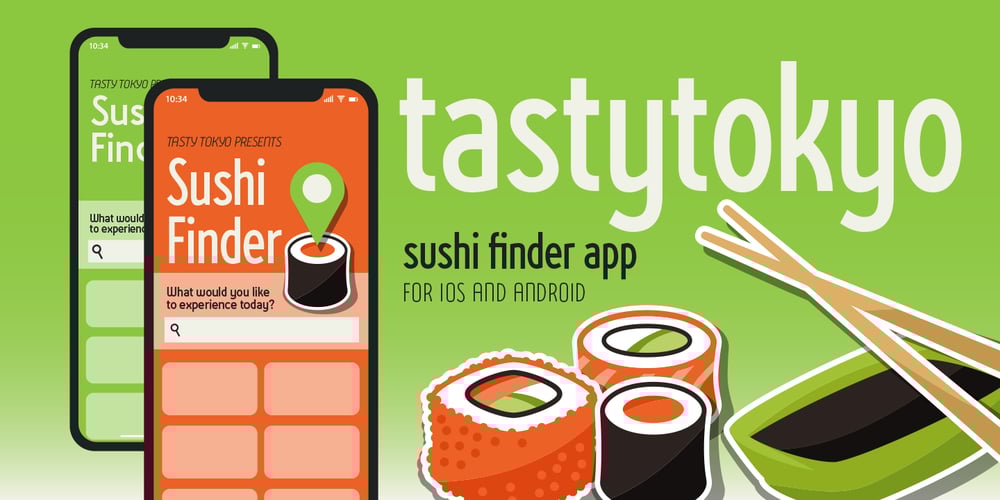
Wasabi Condensed Font Family was designed by Neil Summerour and published by Positype. Wasabi Condensed contains 14 styles and family package options. Remastered in 2019. Wasabi is the re-imagining of my very first release, Iru. Like Iru, Wasabi was heavily influenced by the monument lettering style, Vermarco. The simple, geometric forms allowed for small lettering sizes to be sandblasted cleanly and has been a monument lettering workhorse for decades… the only issue centered around the lack of a lowercase or any other letters beyond the 26 uppercase glyphs and the numerals. Wasabi solves this with the same simple, efficient line reminiscent of the old Vermarco while bringing it into the 21st century. Visual and optical incongruities of the original uppercase were replaced with new interpretations for the capital letters, a new lowercase and small caps were produced and the original single weight alphabet was replaced with six new weights. Wasabi has several ‘lighter’ weights primarily because the thin lines and simple transitions produce very elegant relationships… and I wanted to make sure those relationships could be explored regardless of the scale of letter. Stylistic Alternates show up through the upper, lowercase and small cap glyphs that attempt to simplify these shapes even more when the opportunity arises. Wasabi is as much a utilitarian typeface as it is a headline face. This realization led to the decision to produce a companion Condensed version shortly after the initial regular weights were developed and tested; so, try them all!